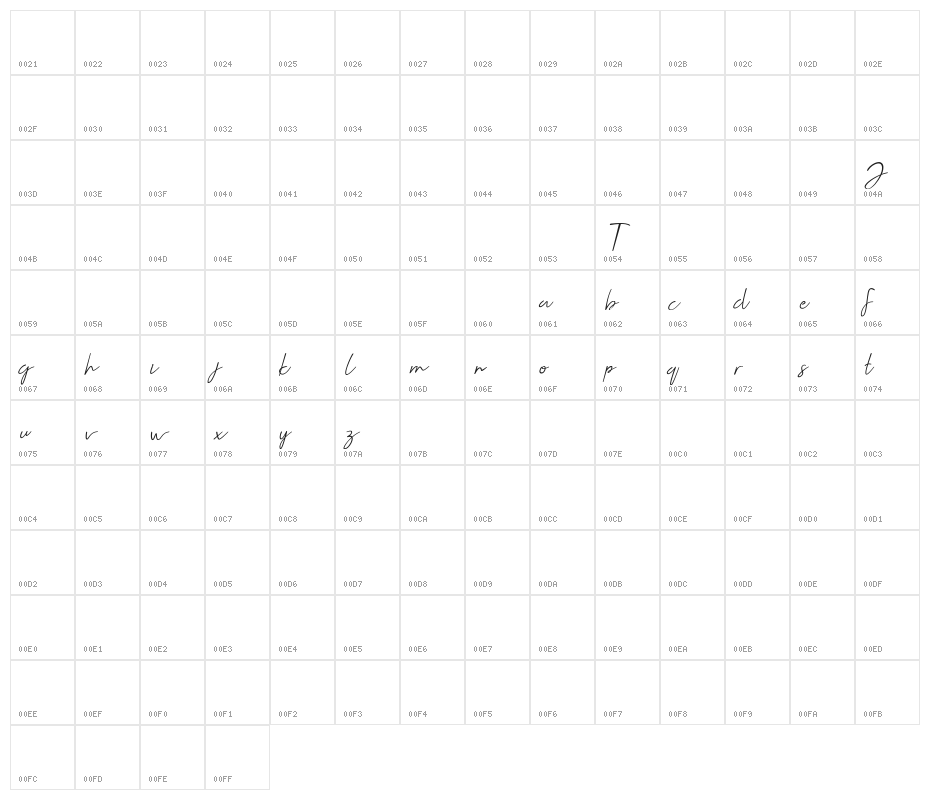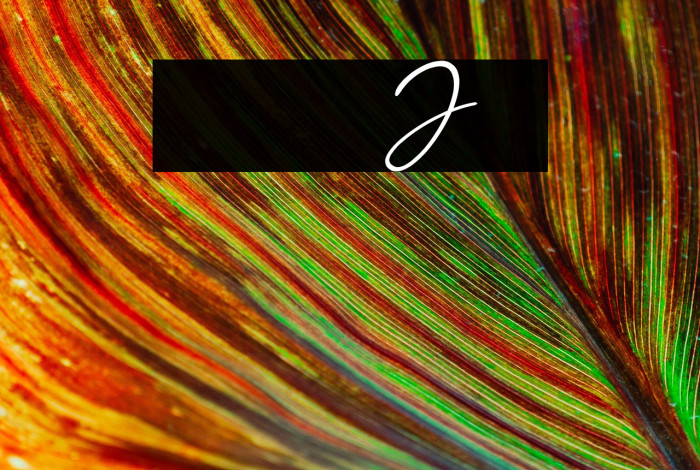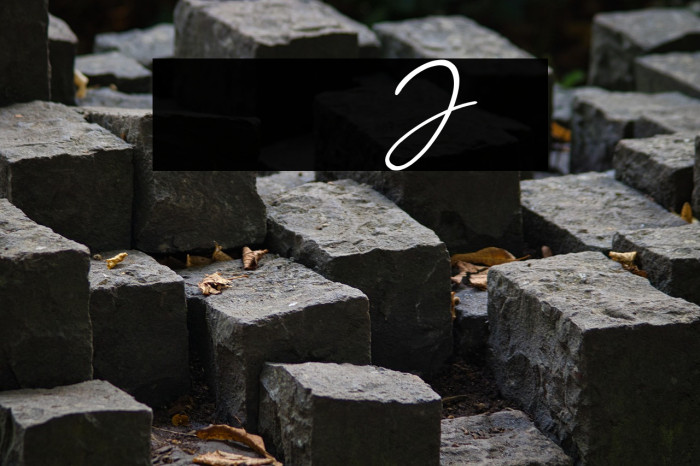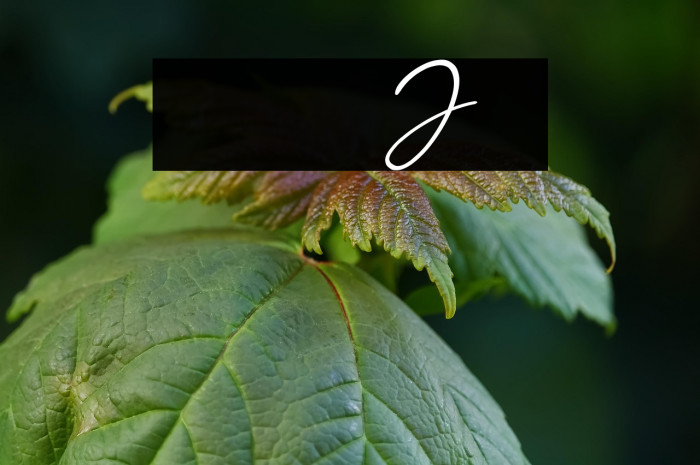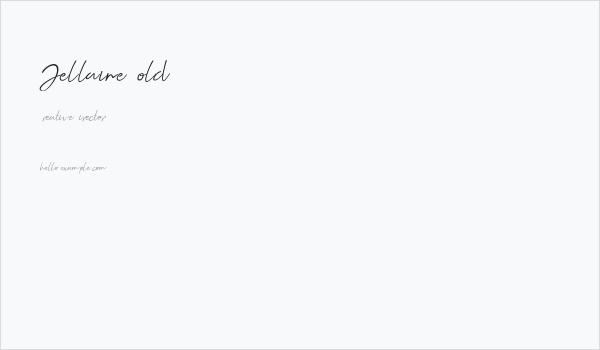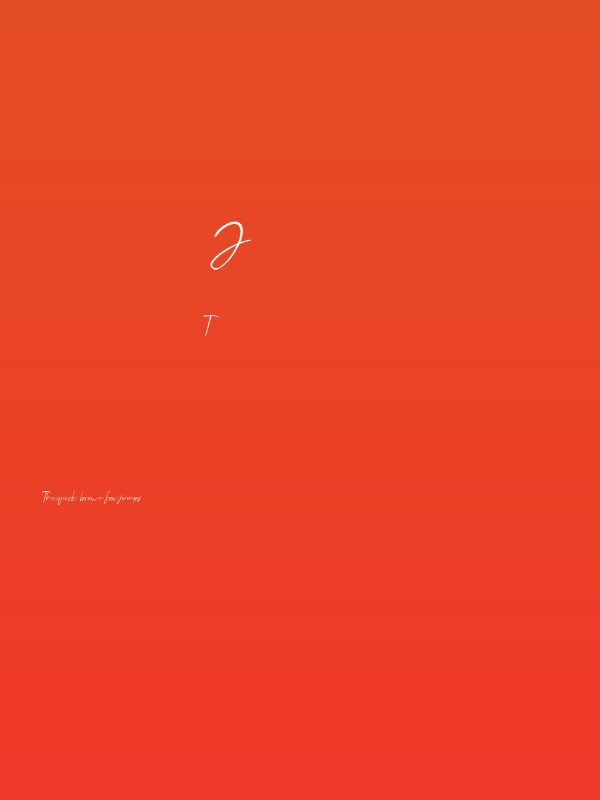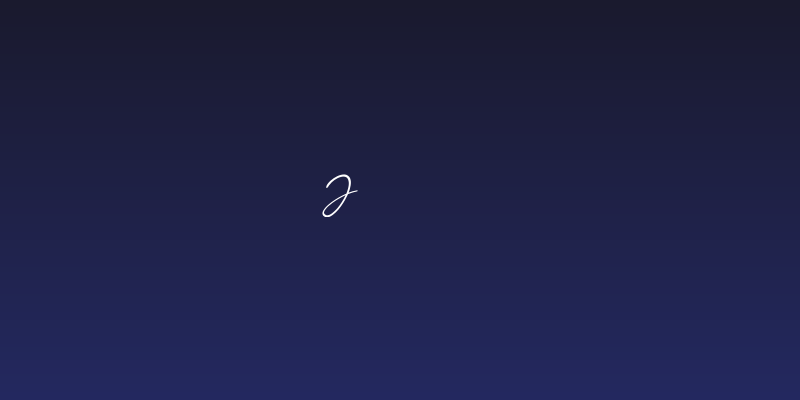
Jellaine-Bold Font
Jellaine-Bold Description
This font features a flowing, cursive style that exudes elegance and sophistication. The letters are connected in a smooth, continuous manner, creating a sense of fluidity and grace. The uppercase letters are slightly more elaborate, with decorative flourishes that add a touch of flair. The lowercase letters maintain a consistent height and spacing, ensuring readability while preserving the artistic quality. This font is ideal for projects that require a personal, handwritten touch, such as invitations, greeting cards, or branding materials. Its delicate strokes and balanced proportions make it suitable for both formal and informal contexts.
| Use Case | Invitations, Greeting cards, Branding |
| Proposed Projects | Ideal for invitations, greeting cards, branding, and any project needing a personal touch. |